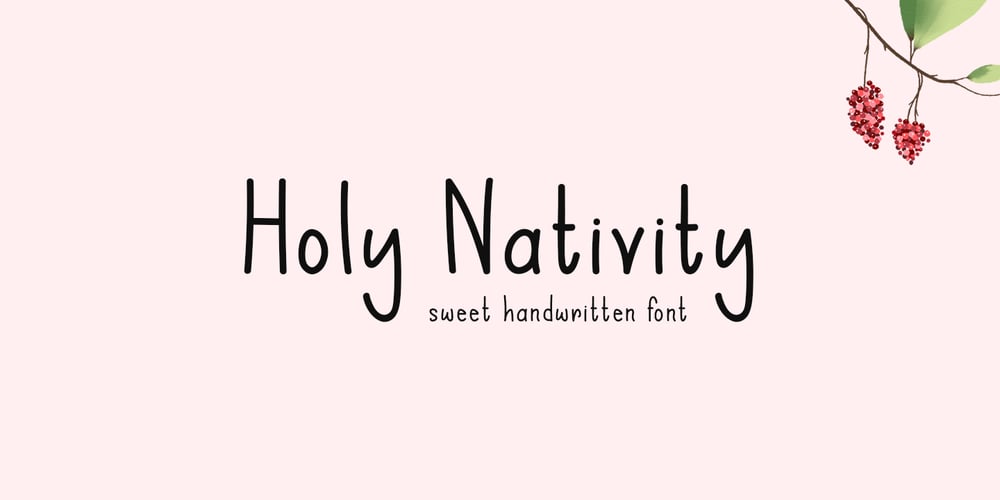
Holy Nativity Font Family was designed by Md Shohail Bhuian and published by Seemly Fonts. Holy Nativity contains 1 styles and family package options. Holy Nativity is a simple lettered handwritten font; it’s a celebration of warmth and joy. Its unique handwritten style invites endless possibilities for your design projects, allowing your creativity to shine.